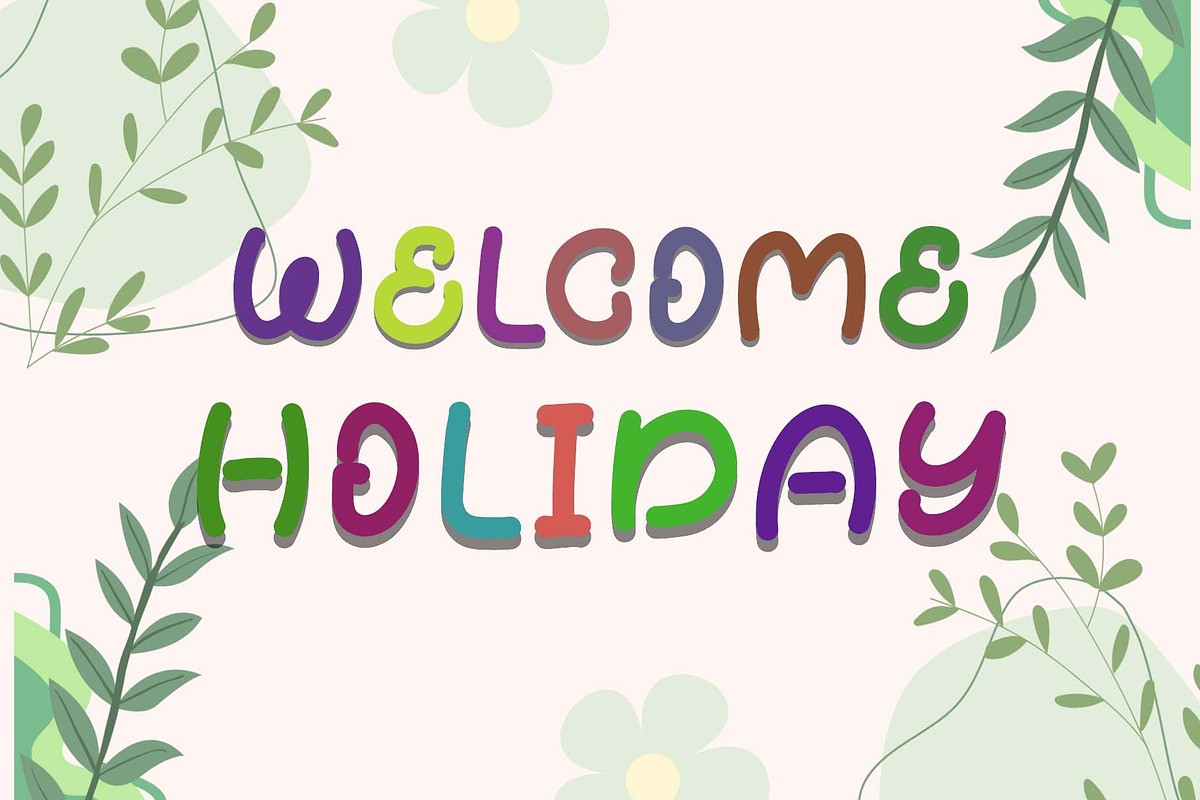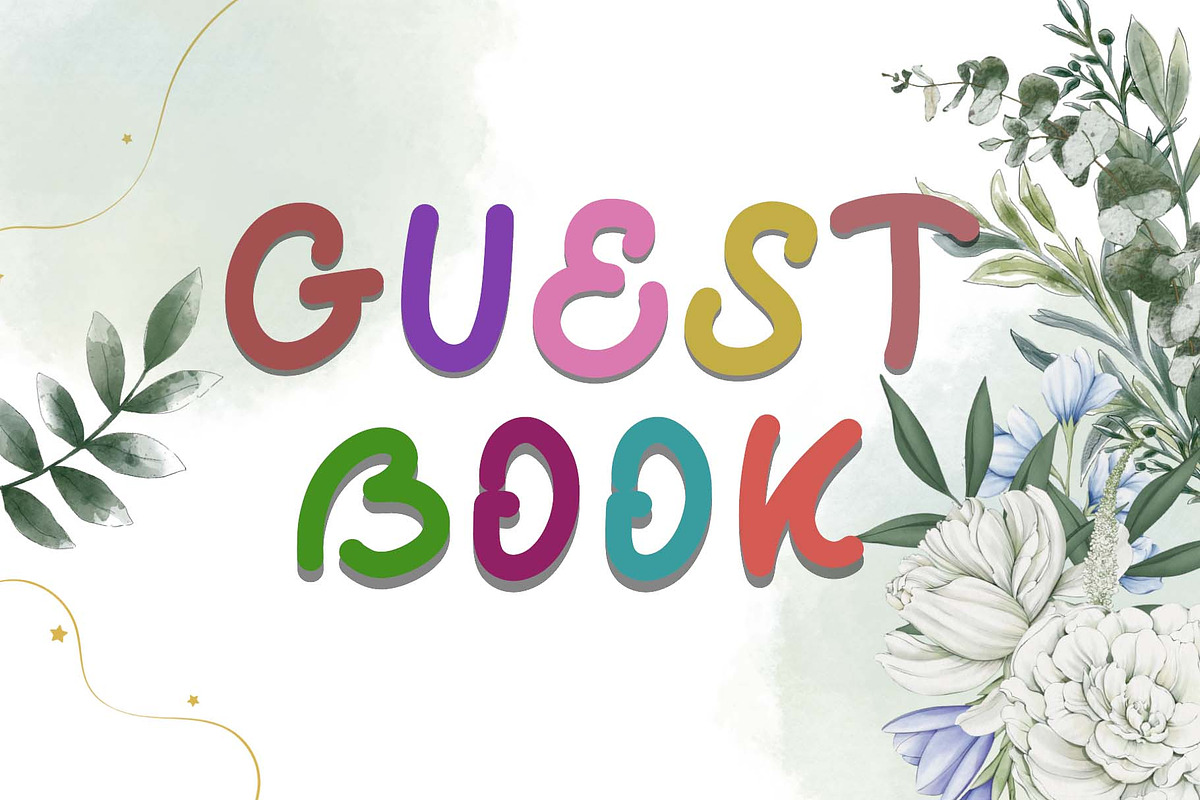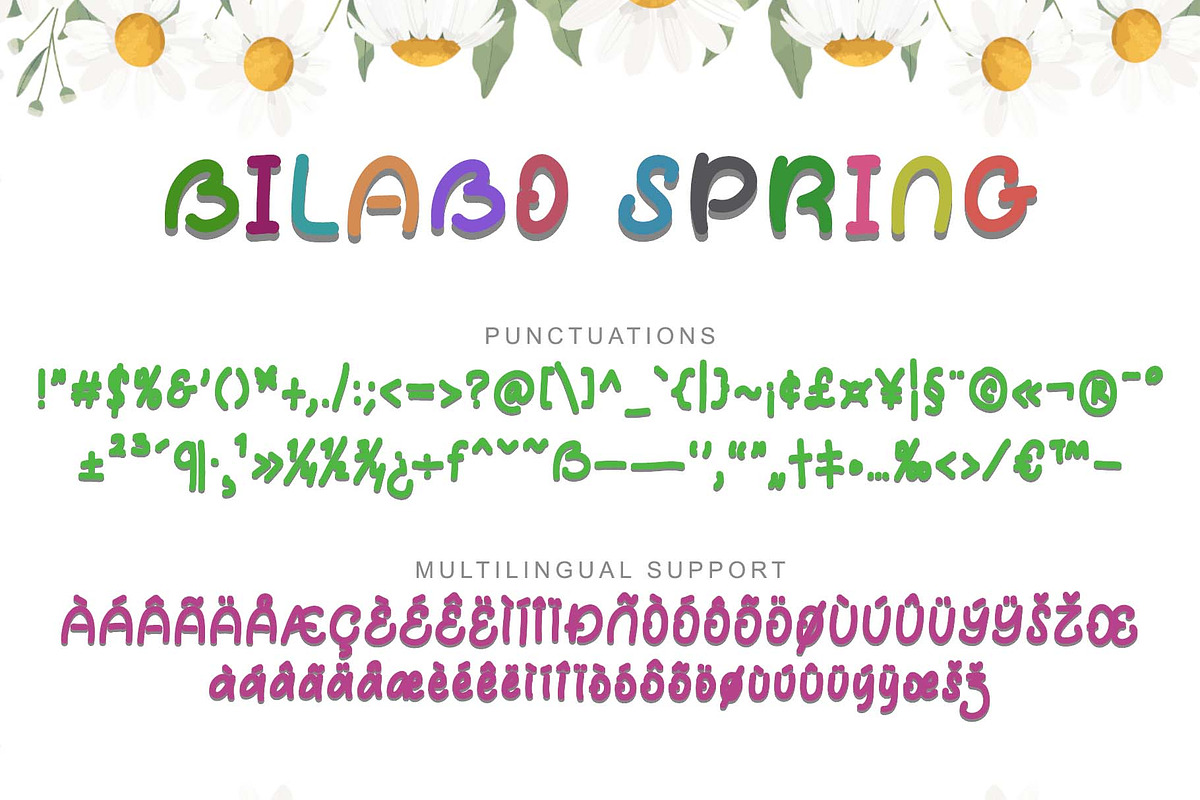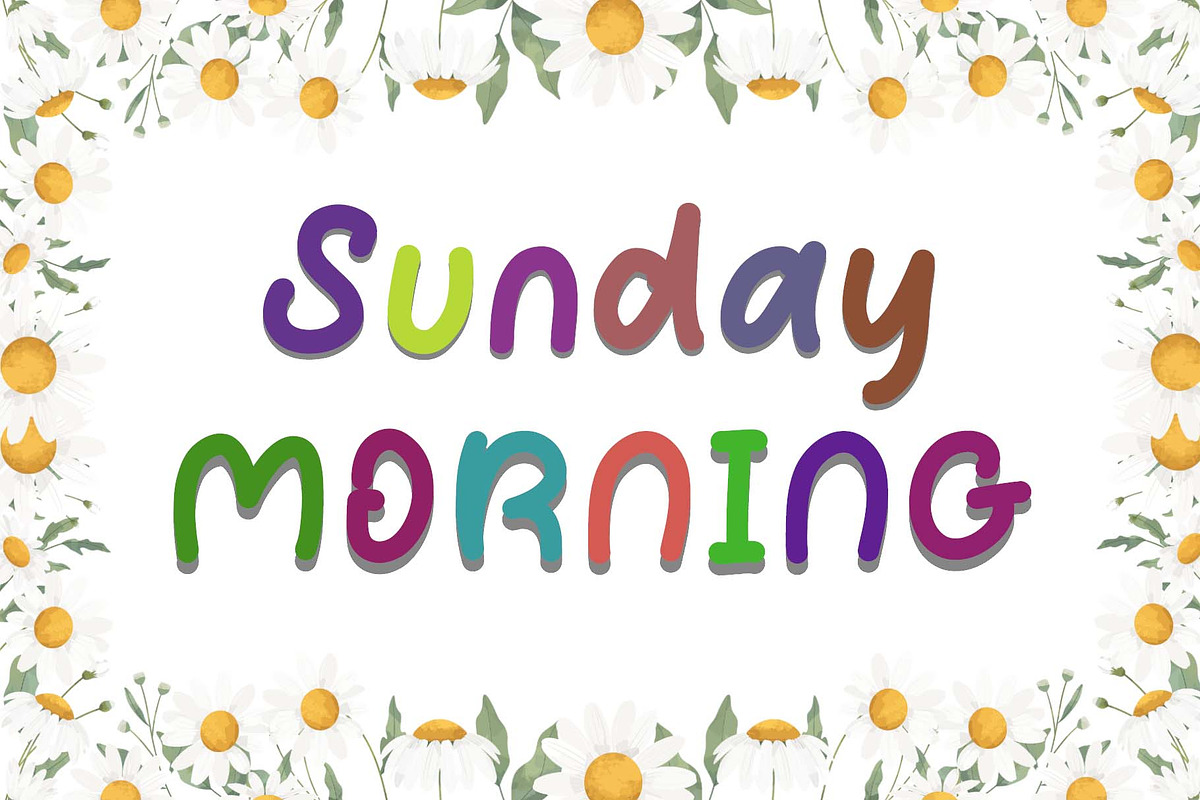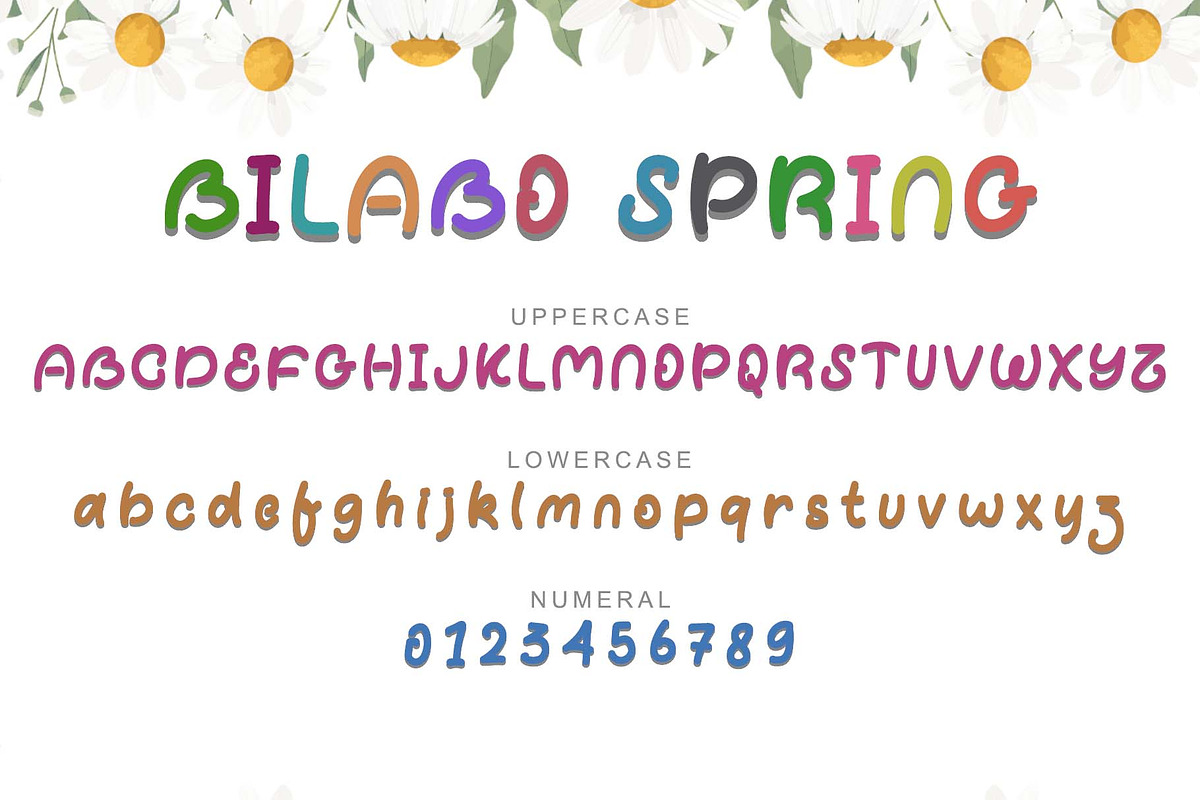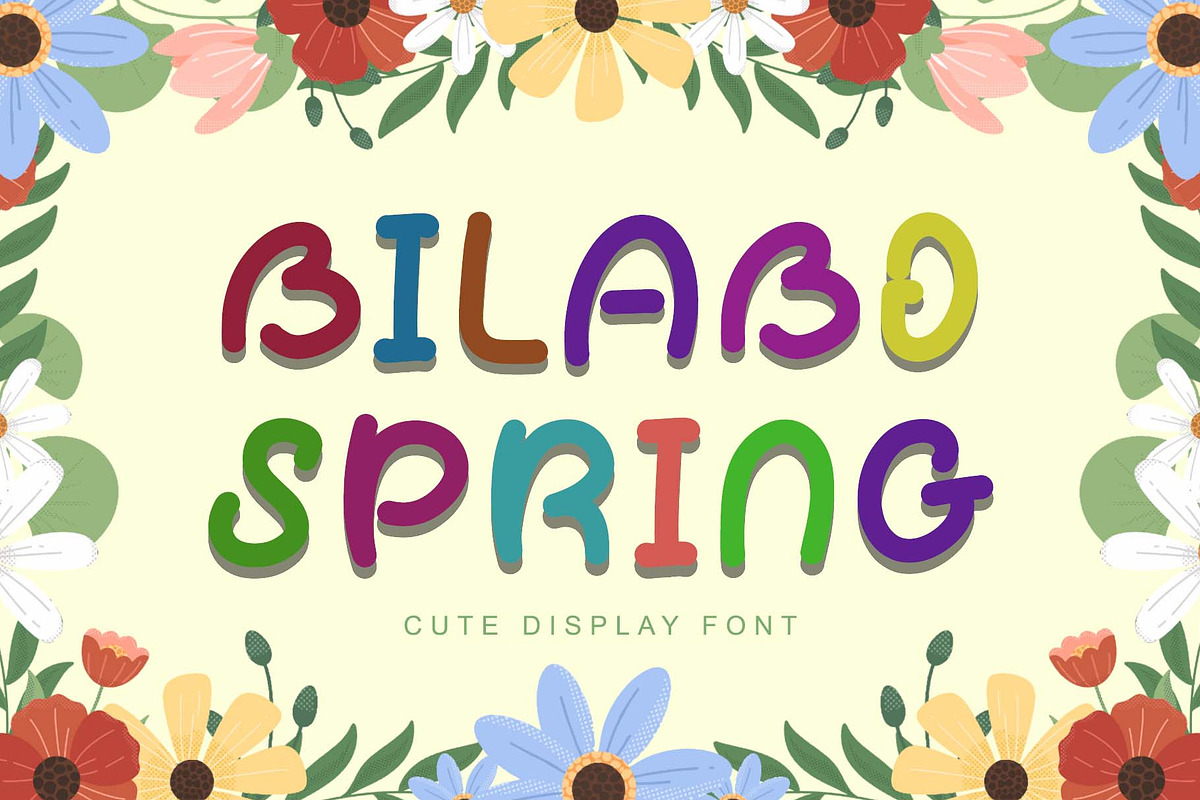
Bilabo Spring
"Bilabo Spring" is a unique and cute display font. This font is equipped with uppercase, lowercase, numerals, punctuations and multilingual support. Very suitable for use for spring, summer, holiday, banner, poster, print, easter, animation, logo, sticker, branding, svg, kdp, procreate and others.